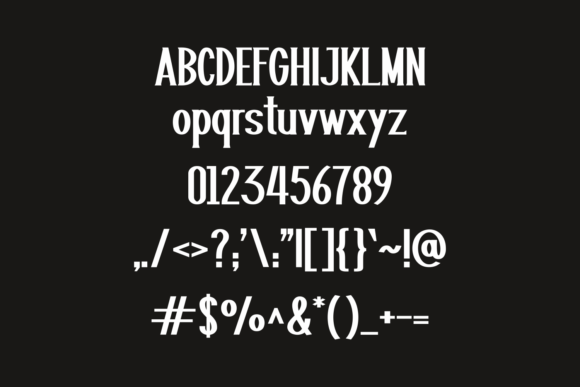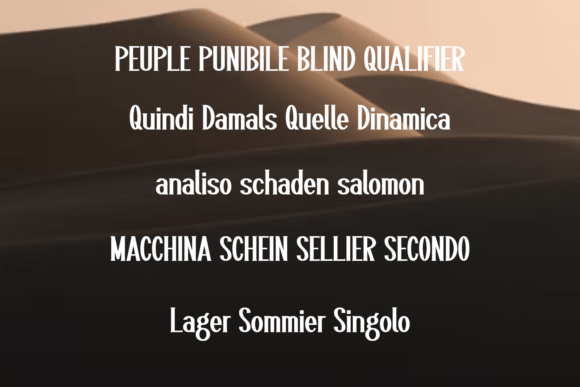
Discover the Unique Charm of Gurosen Font: Elevate Your Designs with this Cool Serif Font
In the world of typography, fonts play a crucial role in conveying the tone and personality of a design. For designers and crafters, finding the perfect font can be a daunting task, especially when looking for something that stands out from the crowd. This is where Gurosen Font comes in – a cool and unique serif font that can elevate any creation. In this article, we’ll explore the features and benefits of Gurosen Font, and why it’s an incredible asset to your font library.
What is Gurosen Font?
Gurosen Font is a serif font that boasts a distinctive and stylish design. Its unique charm lies in its ability to blend classic and modern elements, making it suitable for a wide range of design projects. Whether you’re working on a branding project, a website, or a print design, Gurosen Font is sure to make a statement.
Key Features of Gurosen Font
- Unique Serif Design: Gurosen Font features a one-of-a-kind serif design that sets it apart from other fonts. Its serifs are carefully crafted to add a touch of elegance and sophistication to any design.
- Versatility: Gurosen Font is incredibly versatile, making it suitable for a wide range of design projects, from headings and titles to body text.
- Legibility: Despite its unique design, Gurosen Font remains highly legible, even at smaller font sizes.
- Easy to Read: The font’s clear and concise design makes it easy to read, reducing eye strain and fatigue.
Benefits of Using Gurosen Font
So, why should you consider adding Gurosen Font to your font library? Here are just a few benefits:
- Stand Out from the Crowd: With Gurosen Font, you can create designs that stand out from the crowd. Its unique design ensures that your work won’t get lost in a sea of generic fonts.
- Elevate Your Brand: Gurosen Font can help elevate your brand’s visual identity, adding a touch of sophistication and elegance to your designs.
- Time-Saving: With Gurosen Font, you can save time searching for the perfect font. Its versatility and legibility make it suitable for a wide range of design projects.
How to Use Gurosen Font in Your Designs
Gurosen Font is incredibly easy to use and can be incorporated into your designs in a variety of ways:
- Headings and Titles: Use Gurosen Font to create eye-catching headings and titles that grab attention.
- Body Text: Gurosen Font’s legibility makes it suitable for body text, ensuring that your readers can easily read and understand your content.
- Branding and Identity: Use Gurosen Font to create a consistent visual identity for your brand, adding a touch of elegance and sophistication to your designs.
In conclusion, Gurosen Font is a cool and unique serif font that can elevate any design. Its versatility, legibility, and distinctive design make it an incredible asset to your font library. Whether you’re a designer or crafter, Gurosen Font is sure to become a go-to font for a wide range of design projects. So why wait? Discover the unique charm of Gurosen Font today and take your designs to the next level.